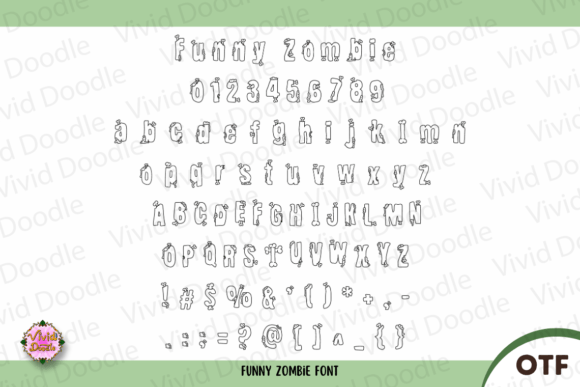
Funny Zombie Font
Introducing the Funny Zombie font—a ghoulishly entertaining typeface perfect for Halloween, horror themes, and spooky party nights. Crafted with a humorous twist on zombie aesthetics, each letter contributes to a comically eerie design. Ideal for creating a lighthearted yet spooky atmosphere, this font is perfect for Halloween invitations, party decorations, and other frightfully fun projects. Transform your creations into a visually entertaining and hilariously creepy experience with this uniquely crafted and versatile typeface!